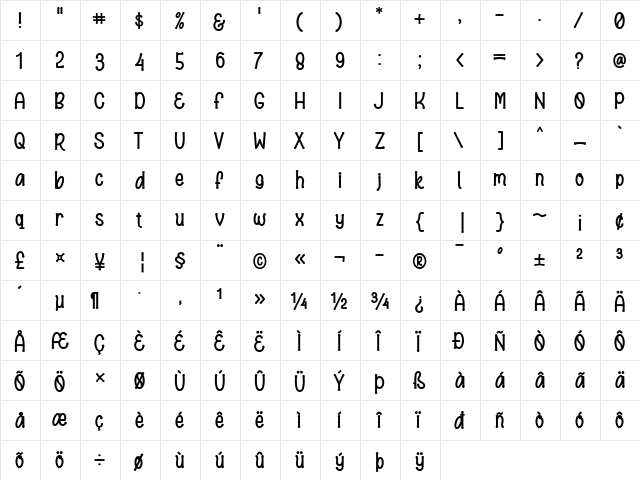
Bronice Regular
| Foundry | 7NTypes |
| Designer | Adif Dzaky; Situjuh Nazara |
Design Context for Bronice Typeface
Bronice is a composed and adaptable typeface that performs quietly and consistently across a wide range of design contexts.